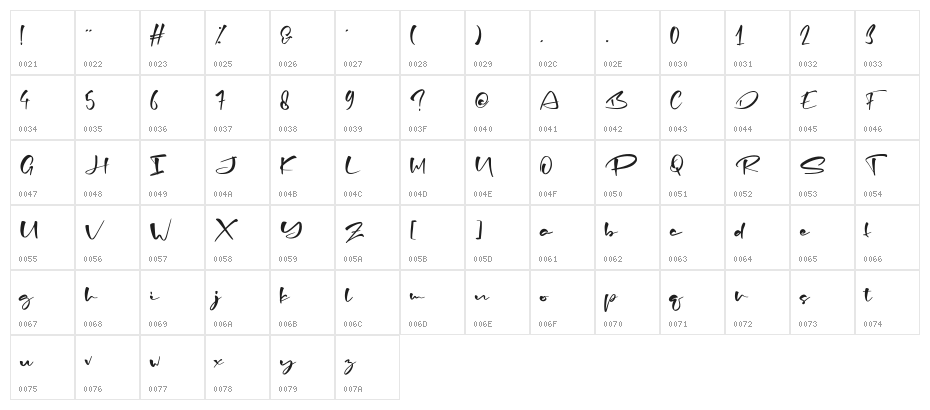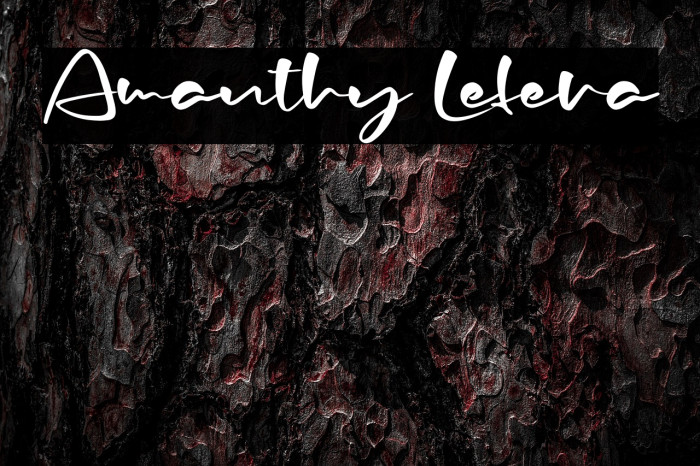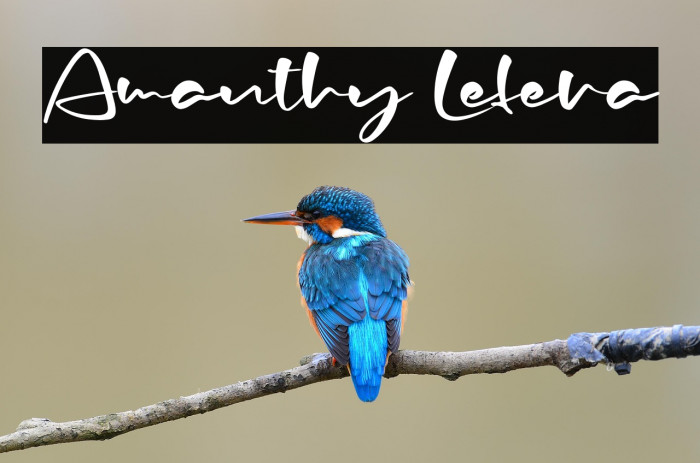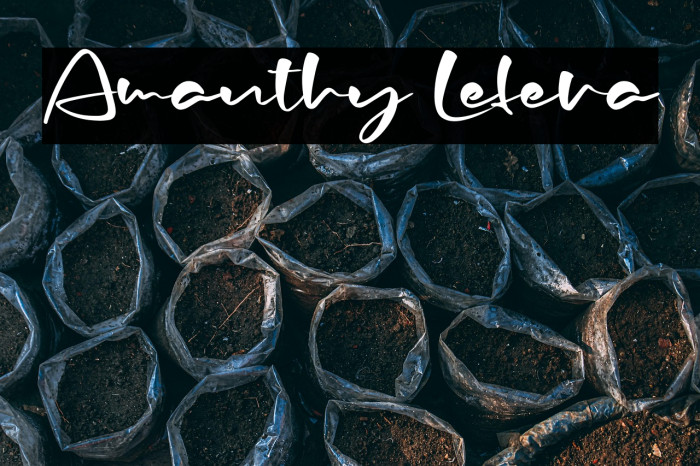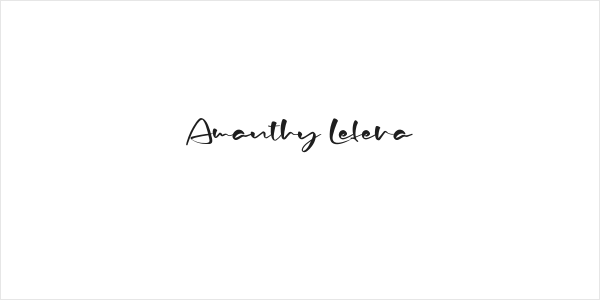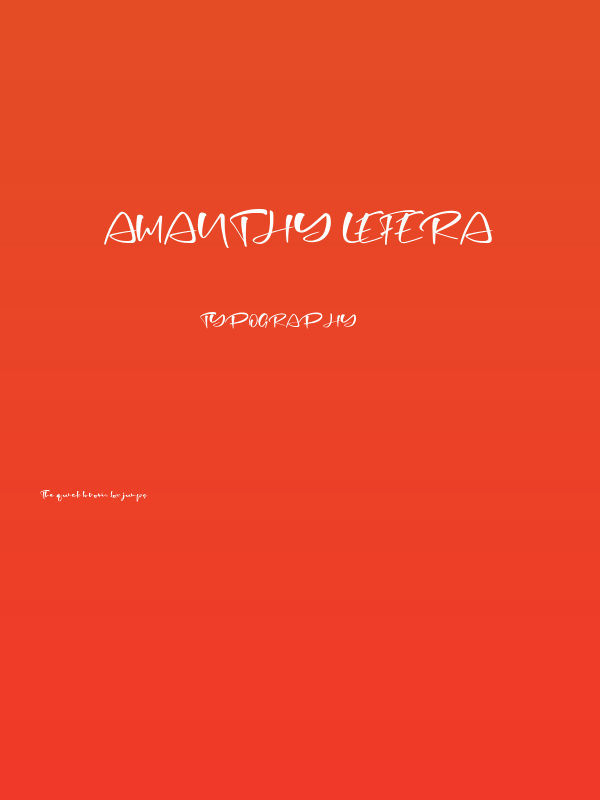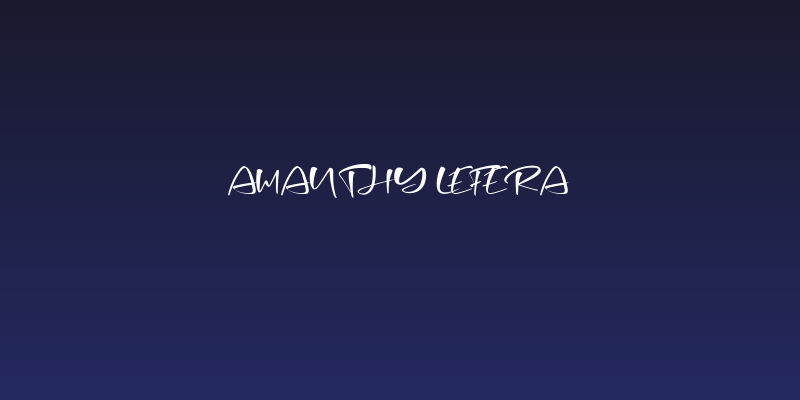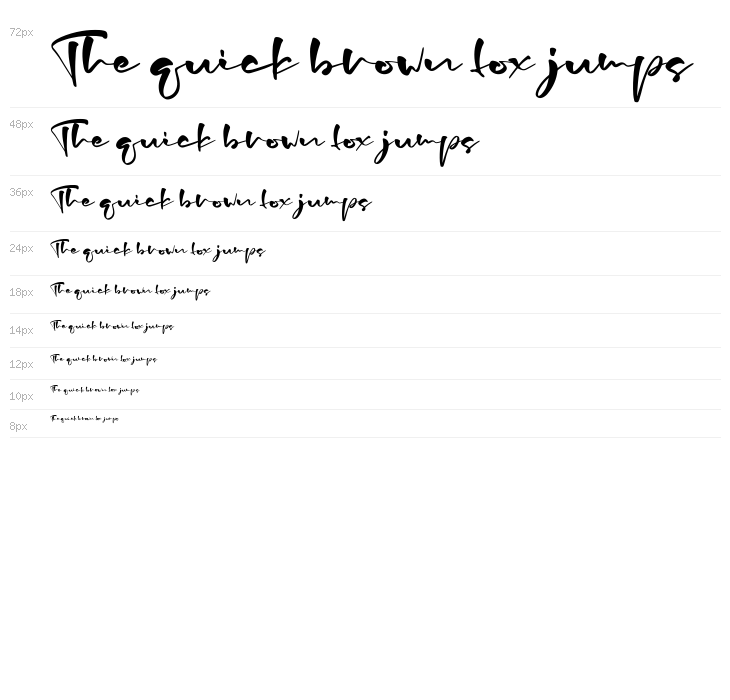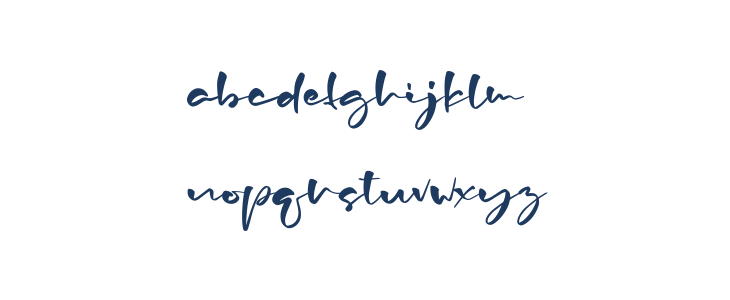
Amanthy Lefera Font
Amanthy Lefera Description
This font features a dynamic and expressive handwritten style, characterized by its fluid and flowing letterforms. The strokes are bold and confident, with a slight slant that adds a sense of motion and energy. The uppercase letters are particularly striking, with unique and artistic flourishes that give each character a distinct personality. The lowercase letters maintain a cohesive look, complementing the uppercase with their own subtle variations. Numbers and special characters are crafted with the same attention to detail, ensuring a consistent and harmonious appearance throughout. This font's overall aesthetic is both modern and artistic, making it suitable for a wide range of creative applications.
| Overall Style | Modern, Artistic |
| Proposed Projects | Ideal for branding, invitations, posters, and creative projects that require a personal touch. |